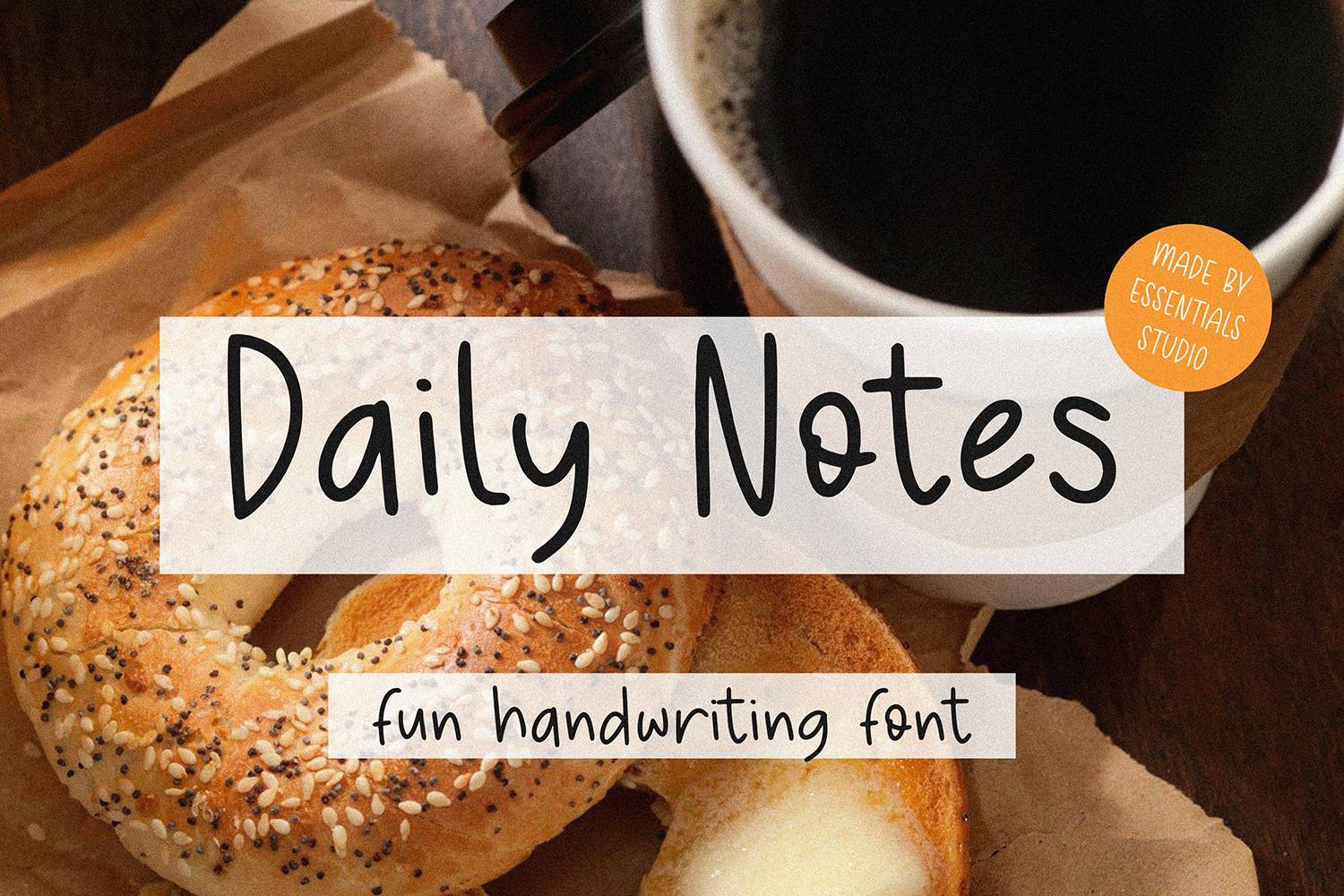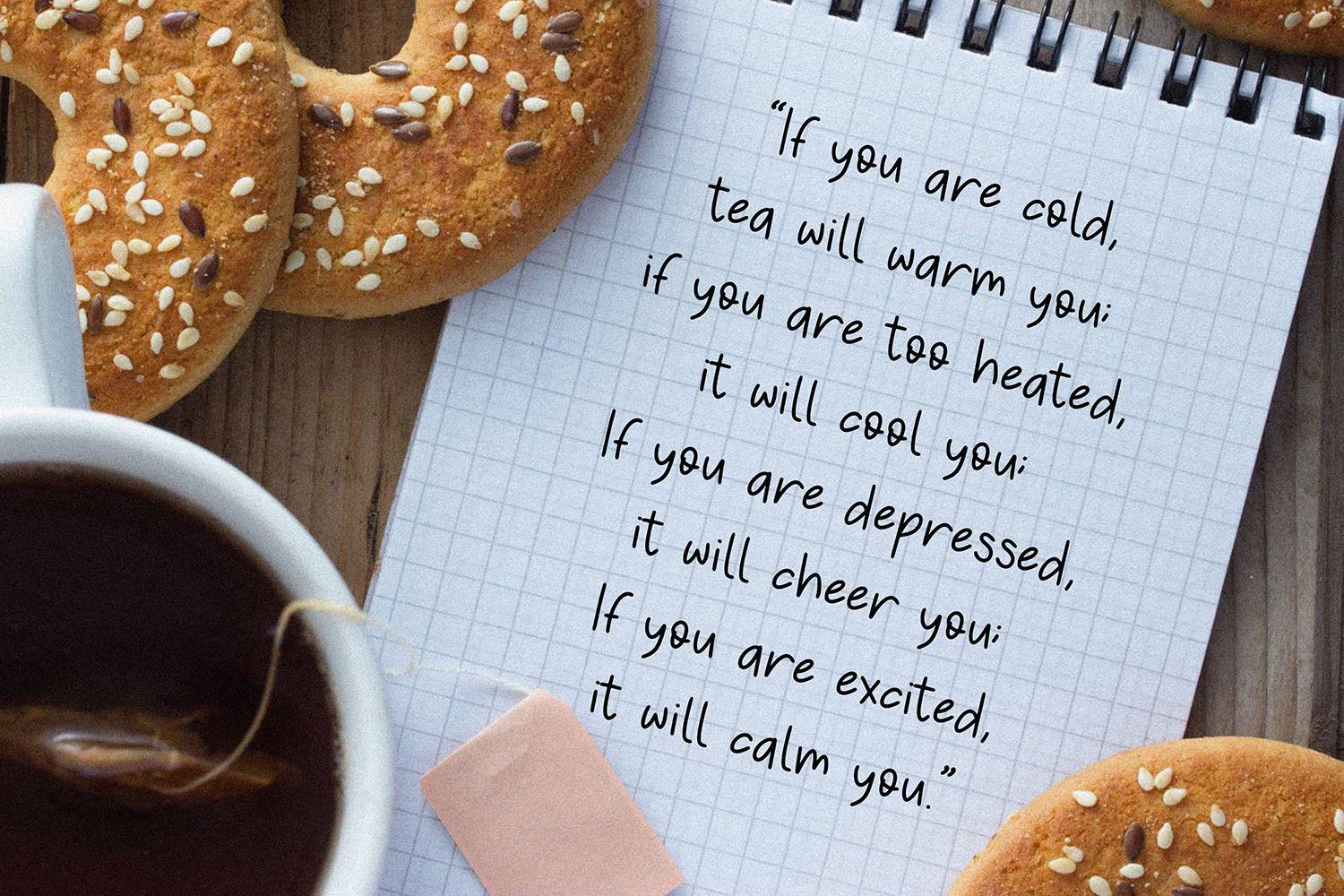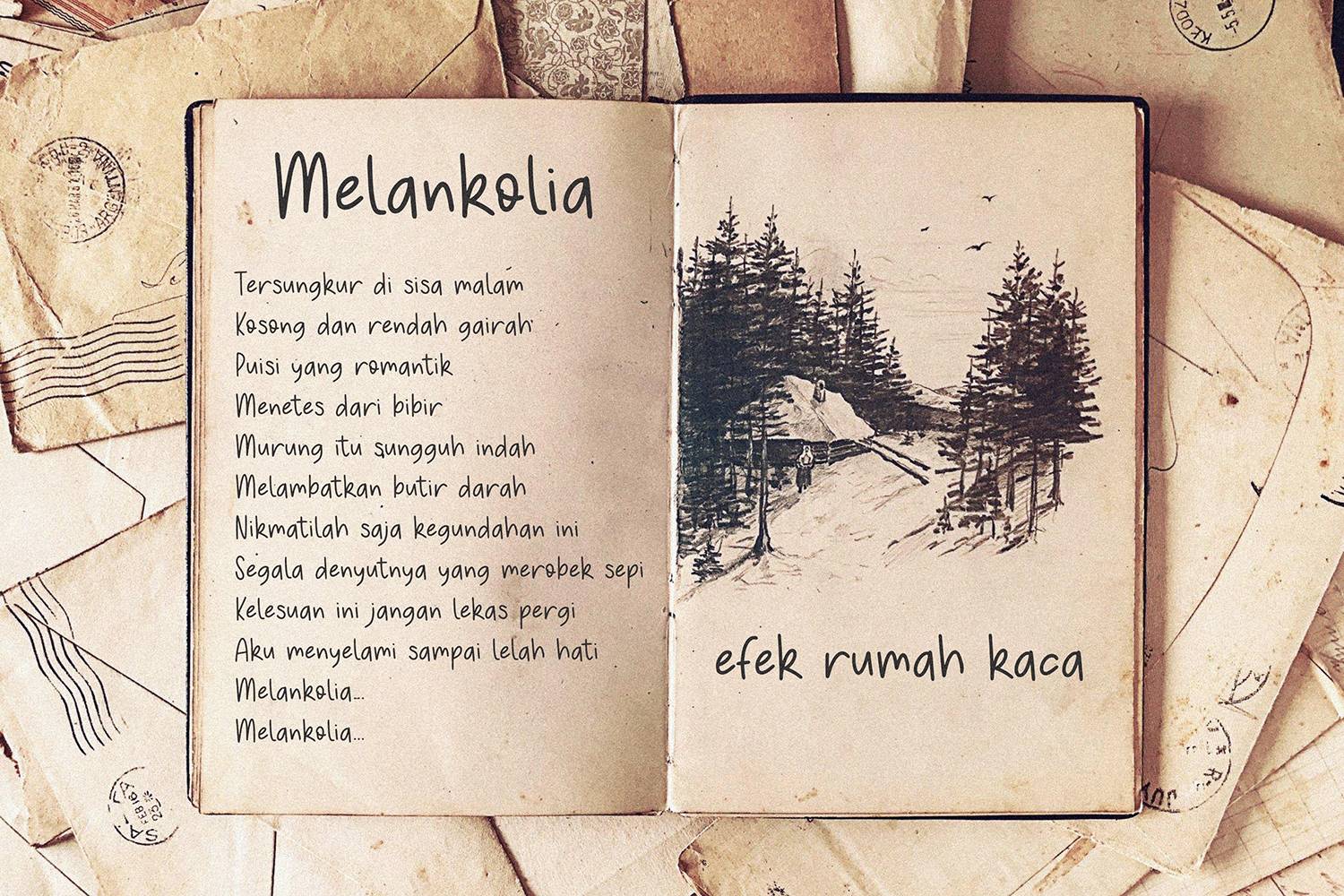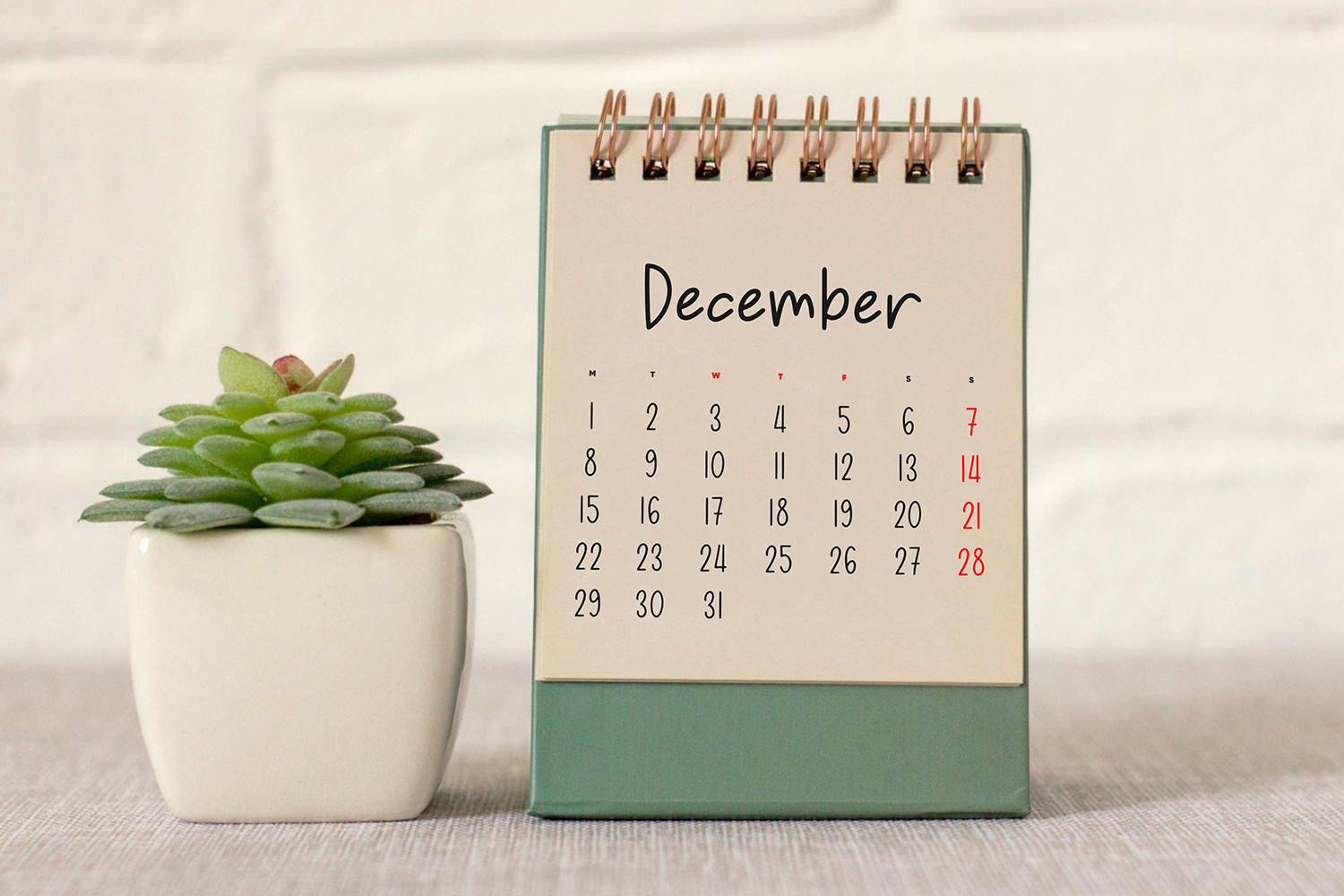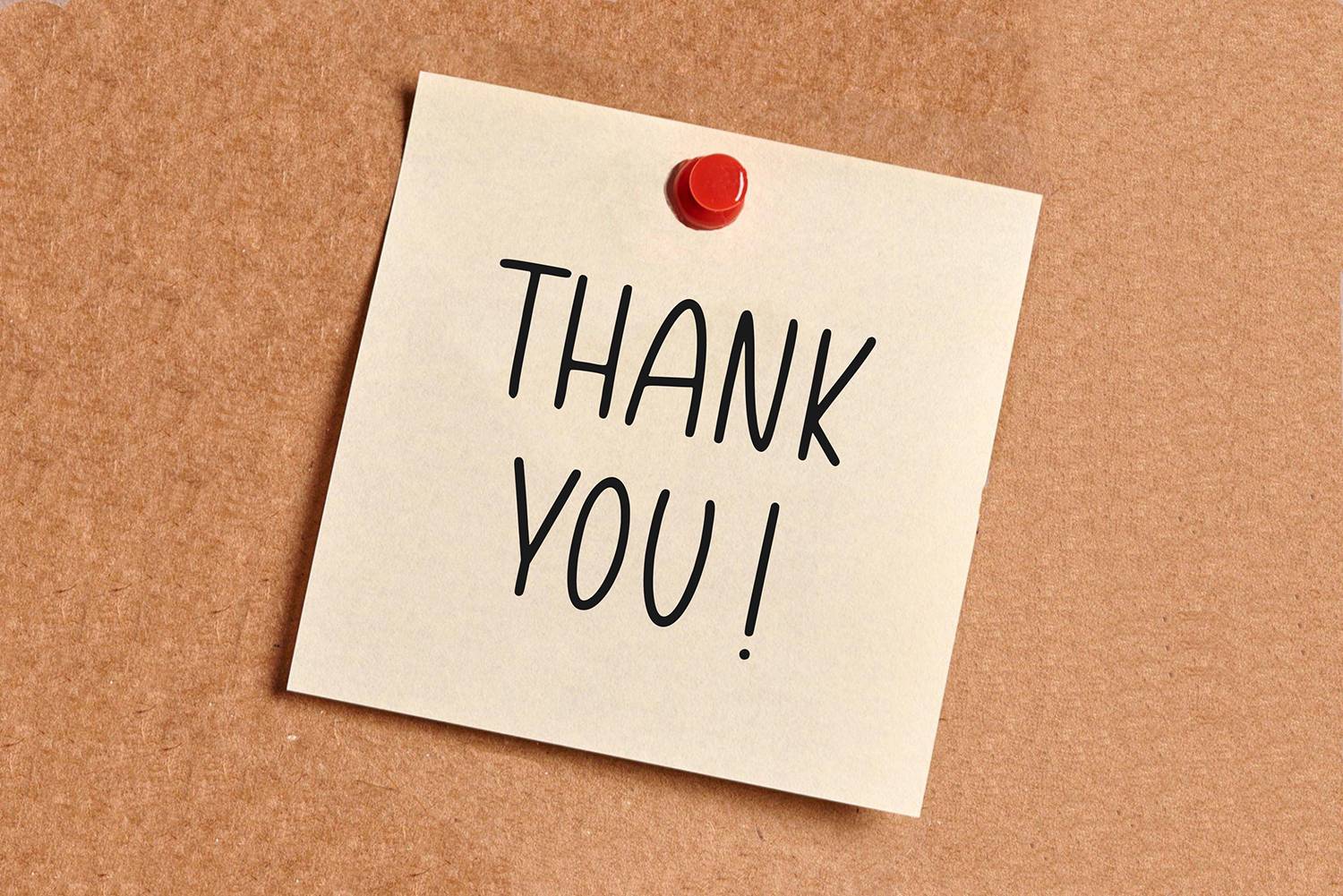
Daily Notes is a light, handwritten sans serif font that captures a casual and friendly vibe with its tall, slightly uneven letterforms and smooth, organic strokes. Its playful and approachable style makes it perfect for informal projects like personal notes, children's books, and creative branding that seeks a warm, human touch. This font works well in both headlines and body text where a relaxed and natural feel is desired without sacrificing readability.
Daily Notes Font
About Daily Notes Font
| Font family | Daily Notes Font |
| Designer | Annas Rifky Anhar |